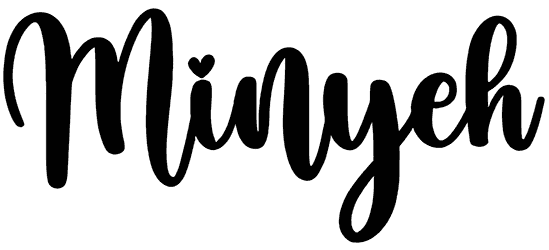
Amilo Font
Amilo is a lovely font with a heart shape in some characters. This font does not contain numbers. This font can create intimate moments for your girly designs and parties.
This fat marker font with a sense of play, fantasy, and handwriting font is useful in the design of girls’ t-shirts, camping flyers, childish animations, and many childish designs that come to mind.